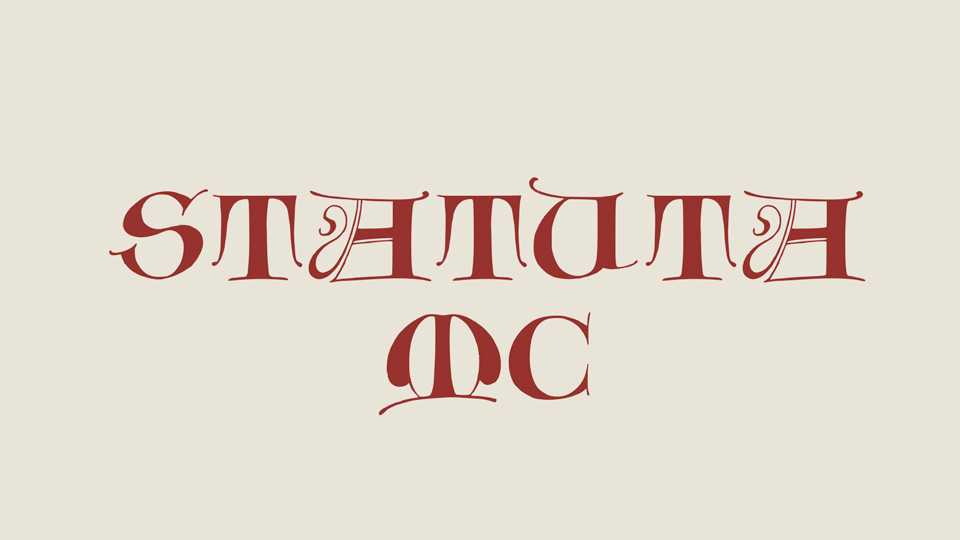
Download StatutaMC font, a decorative medieval all caps typeface. StatutaMC is perfect for monograms, initials, headlines, especially historical projects.
Designer: Michele Casanova